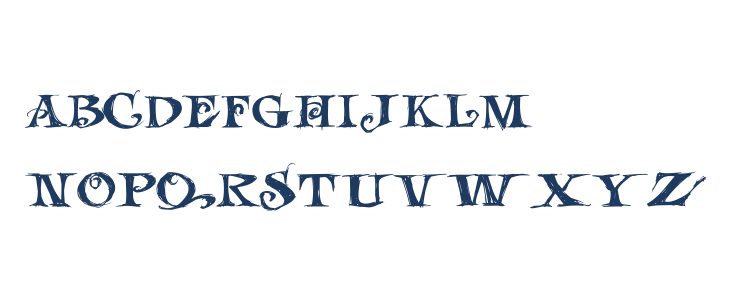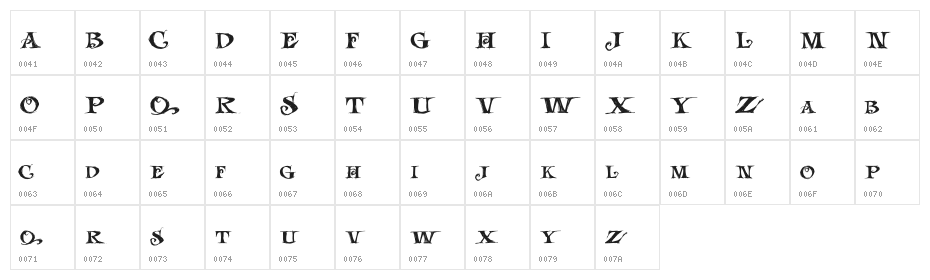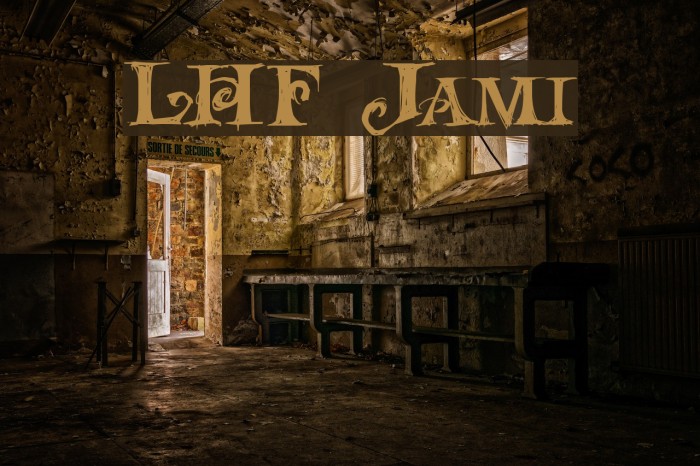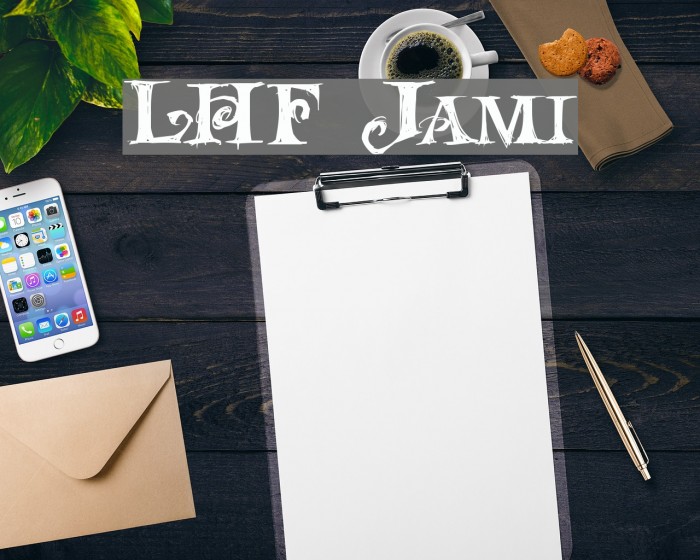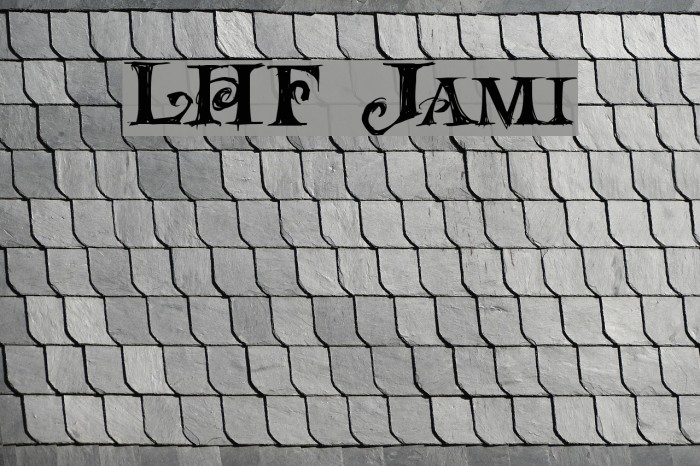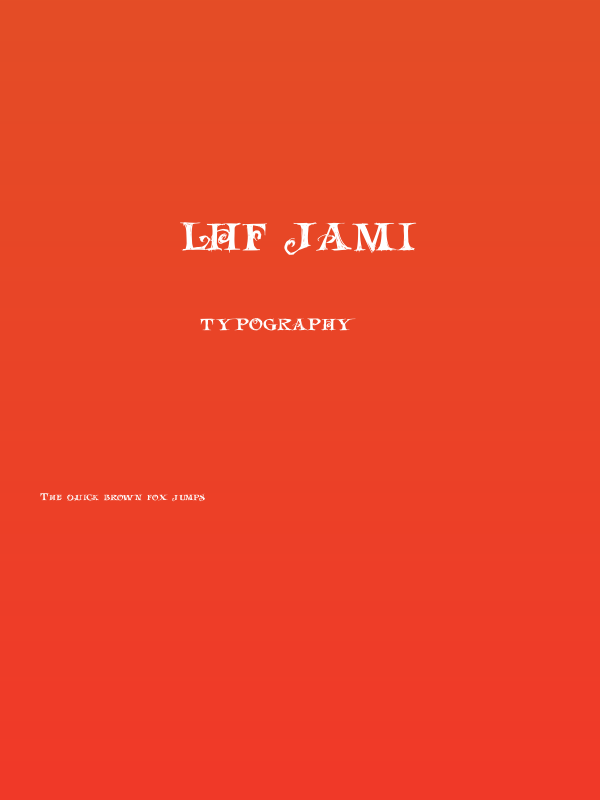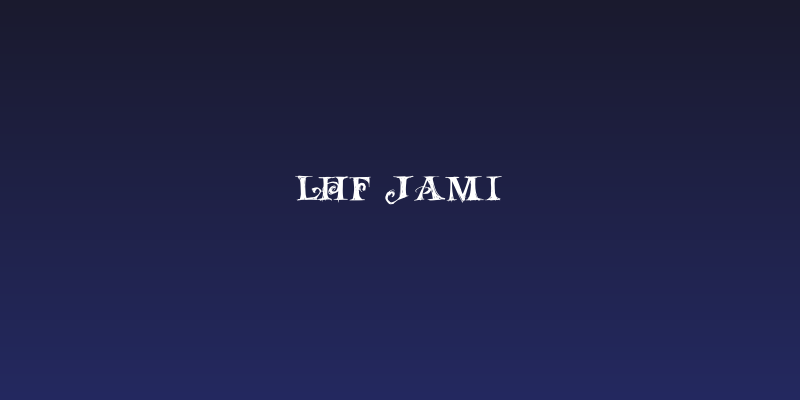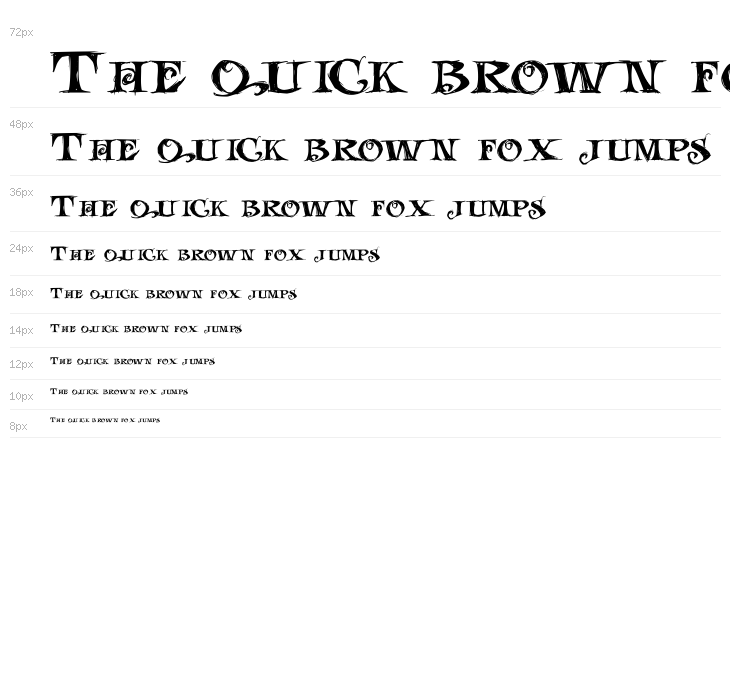
LHF Jami Font
LHF Jami Description
This font features an intricate and decorative style, characterized by sharp, thorn-like embellishments that extend from the main strokes of each letter. The uppercase letters are bold and dramatic, with a gothic influence that gives them a mysterious and edgy appearance. The lowercase letters maintain the same decorative elements, ensuring consistency throughout the typeface. The numbers and special characters are designed to match the ornate style of the alphabet, making this font suitable for projects that require a unique and eye-catching aesthetic.
| Overall Style | Gothic, Decorative |
| Proposed Projects | Ideal for Halloween-themed designs, gothic posters, album covers, and fantasy book titles. |